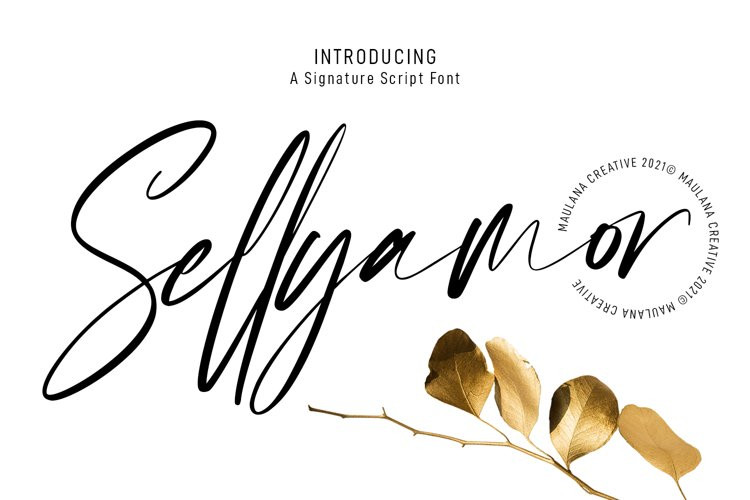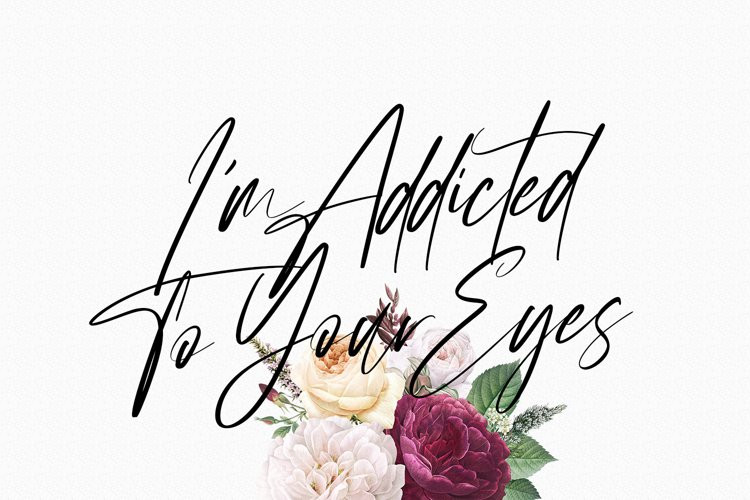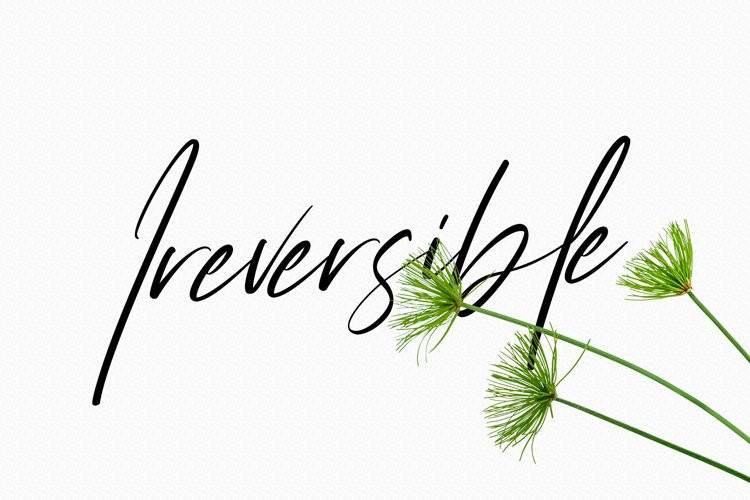
Sellyamor Font
Sellyamor FontSellyamor is a beauty signature script font. With thin stroke, super slanted and Unique Upper and lower character with a bit of ligatures. To give you an extra creative work. Sellyamor font support multilingual more than 100+ language. This font is good for logo design, Social media, Movie Titles, Books Titles, a short text even a long text letter and good for your secondary text font with sans or serif. Make a stunning work with Sellyamor font.